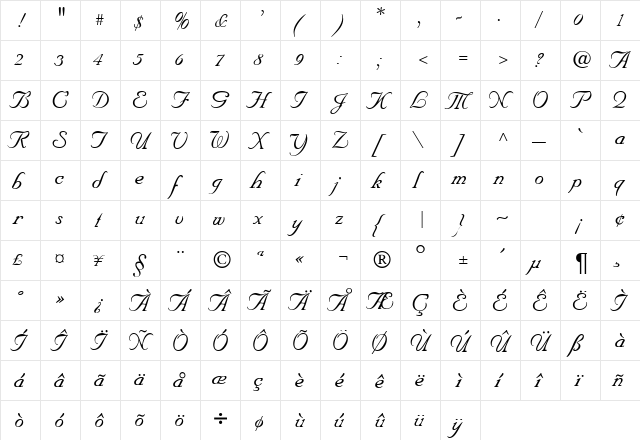
NupalScriptDB Italic
Design Context for NupalScriptDB Typeface
NupalScriptDB flows with the natural rhythm of handwritten lettering, making it ideal for designs that call for warmth and personal expression.
Font Pairing: Combine NupalScriptDB with a simple geometric sans for maximum contrast — the tension between flowing curves and clean structure is a classic typographic pairing.
Pro Tip: Pair NupalScriptDB with a clean sans-serif for supporting text. The contrast between fluid script and geometric structure creates an elegant typographic hierarchy.